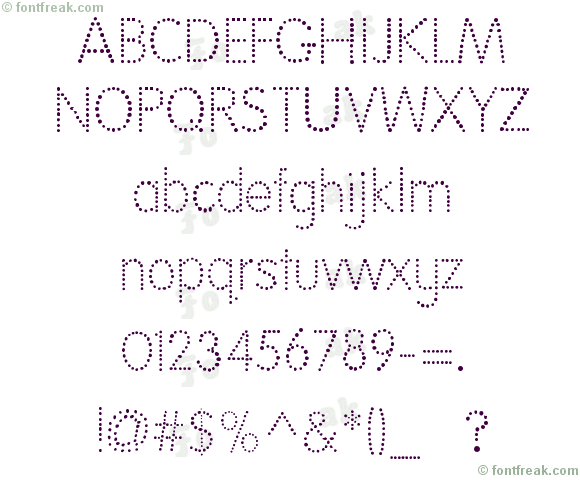
National First Font Dotted
The National First Font Dotted, created by Roger White, is a captivating display font that falls into the decorative category. This unique typeface features a series of dotted characters that give it a playful yet sophisticated appearance. The stroke weight is uniform, providing a sense of balance throughout the letters, while the spacing is thoughtfully designed to ensure legibility without sacrificing style. The dotted design adds a whimsical touch, making this font an eye-catching choice for various creative projects.
Ideal for use in wedding invitations, National First Font Dotted can bring a lighthearted charm to special announcements. Its playful nature also makes it a great fit for children's book covers, where a sense of fun and creativity is essential. Additionally, the font works wonderfully for promotional materials such as flyers and posters for events, adding a distinctive flair that captures attention. Small business owners can utilize it in branding efforts, such as logos and signage, to create a memorable identity that resonates with customers. Content creators looking for an engaging font to enhance their online presence will find this typeface particularly appealing for social media graphics and blog headers.
The target audience for National First Font Dotted includes graphic designers, small business owners, and content creators who are seeking a unique font to elevate their projects. The charm of this font lies in its ability to blend both creativity and professionalism, making it versatile across various applications. As a freeware font, it offers an accessible option for those in need of a distinctive typeface without the constraints of licensing fees. Downloading the National First Font Dotted font free download allows users to explore the endless possibilities this delightful typeface has to offer, making it a standout choice for any design project.